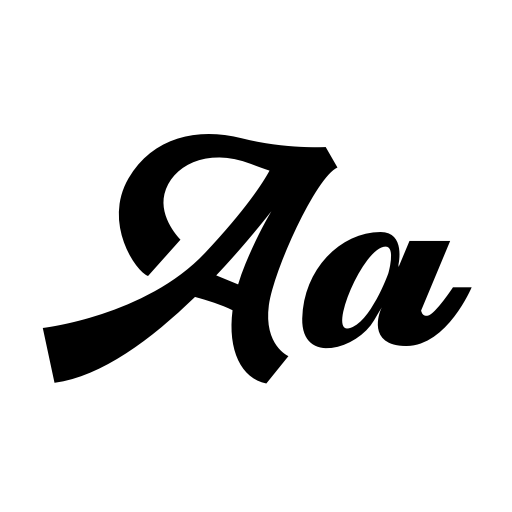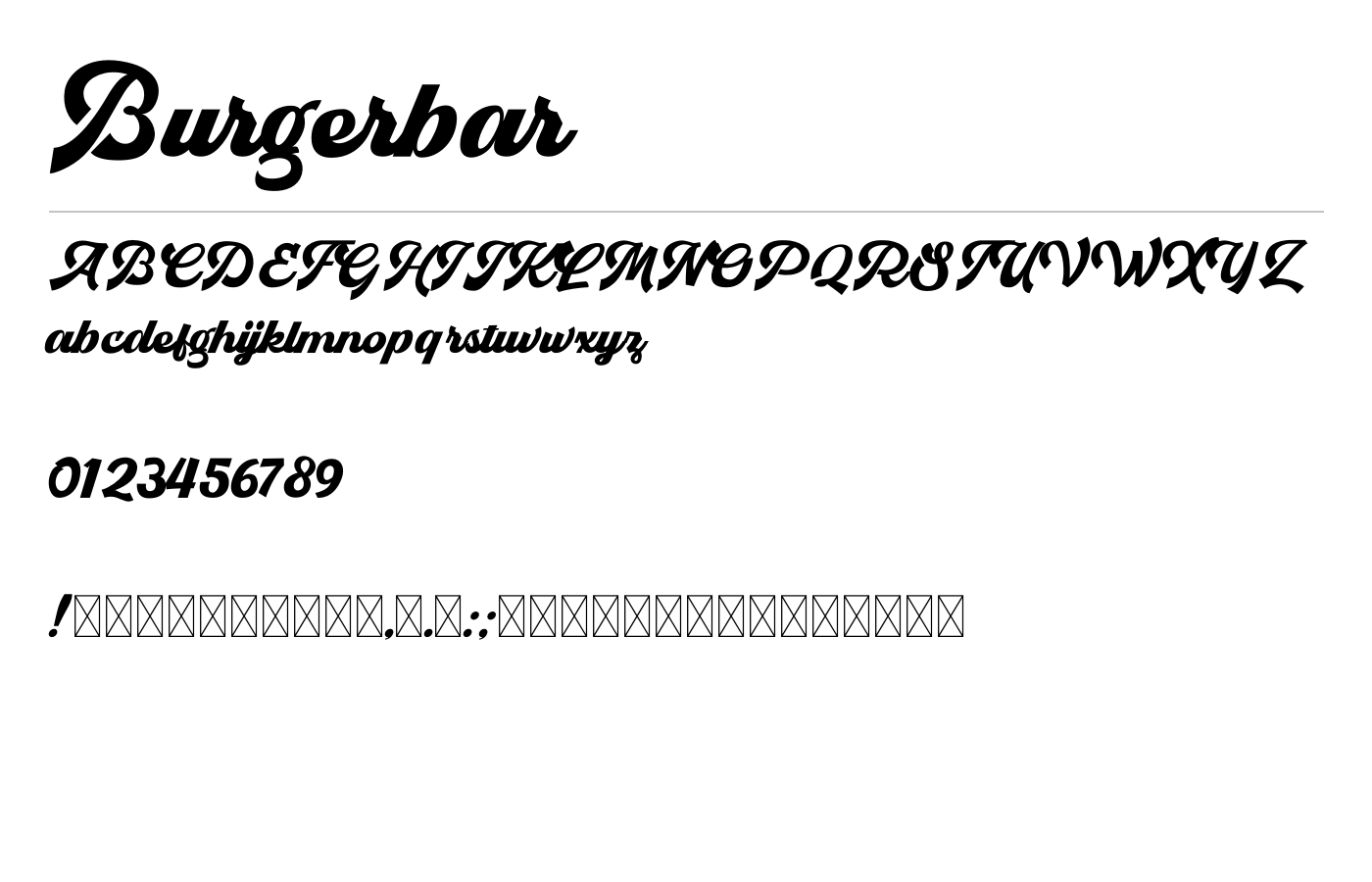
Burgerbar Font is a bold, script-style typeface with a vintage flair, featuring strong, fluid strokes and a slightly condensed width that gives it a confident and dynamic personality. Its elegant curves and distinctive letterforms make it ideal for eye-catching headlines, logos, and branding that want to convey a sense of classic charm and bold style. This font works especially well for retro-inspired designs, packaging, and signage where a playful yet sophisticated look is desired.
Burgerbar Font
About Burgerbar Font
| Font family | Burgerbar Font |
| Designer | LETTERCORNER STUDIO |